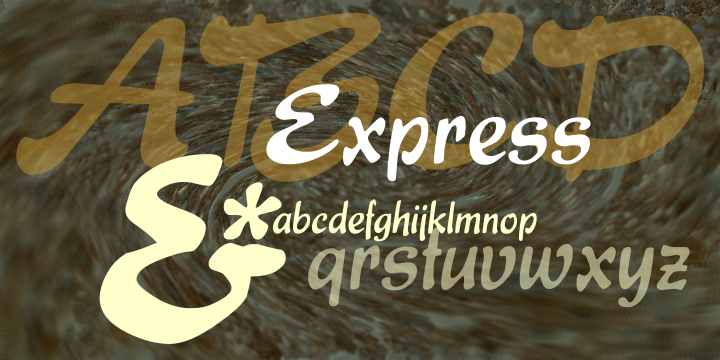
Express Font is perfect for dynamic delivery services, fast transport companies, urgent messaging systems, speed-focused marketing campaigns, rapid response branding, express logistics materials, quick service restaurants, instant communication platforms, fast-track educational programs, and time-sensitive promotional designs.
What makes Express Font so exciting is its dynamic velocity that embodies speed, efficiency, and the urgent energy of fast-paced modern communication and rapid service delivery. This typeface features streamlined letterforms with forward momentum and energetic construction that conveys immediate action and swift responsiveness. The font's fast and decisive character communicates urgency and reliability, making it perfect for service brands seeking to establish rapid response positioning and appeal to customers who value speed, efficiency, and the confidence that comes with fast, dependable service delivery.
Express Font family includes Regular, Bold, Light, and Ultra weights, along with speed alternates and dynamic variations. The family also features special character sets including velocity symbols, direction arrows, and rapid-movement decorative elements that enhance the font's connection to speed and express delivery themes.
The Express Font Free Download package offers designers access to high-speed typography that brings dynamic urgency to any fast-service project. This energetic typeface combines velocity design principles with maximum impact functionality, creating a powerful visual tool for express brands and speed-oriented organizations. Whether you're developing rapid delivery identities, designing urgent communication materials, or creating fast-paced marketing campaigns, this font provides the swift character needed to communicate speed and immediate response.
Express Font supports comprehensive character sets including Latin alphabets, numbers, punctuation marks, and special velocity symbols. The font's dynamically spaced construction creates forward momentum while ensuring excellent readability across all express service applications. Its OpenType features include contextual alternates, speed ligatures, and dynamic typography options that expand creative possibilities for fast-paced design projects.
Professional designers choose Express Font for projects requiring authentic speed appeal and express service aesthetics. The font excels in applications where velocity and urgent response are essential, offering the perfect solution for brands seeking to communicate rapid delivery, immediate service, and connection to fast-paced modern life. Its express character makes it ideal for logistics companies, delivery services, and rapid-response organizations.
The Express Font Free Download provides creative professionals with an exceptional opportunity to explore velocity typography. With its dynamic character variations, speed-inspired design elements, and urgent quality, this font represents outstanding value for designers, express service organizations, and creative agencies specializing in fast-paced visual communications that celebrate the power of speed and the essential importance of rapid, reliable service delivery and immediate response.